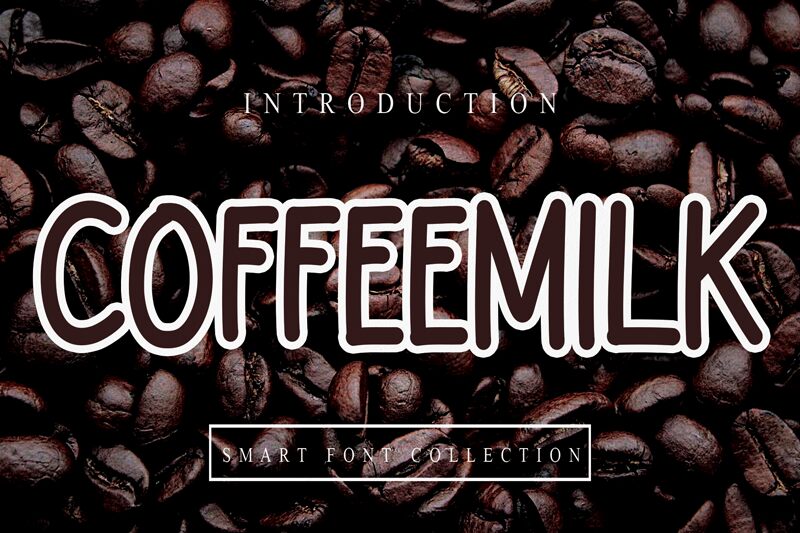
Coffeemilk
Coffeemilk, a handcrafted font by Scratchones, exudes a warm, inviting aesthetic that evokes a cozy, artisanal ambiance. The organic, slightly imperfect strokes and playful, flowing letterforms lend a sense of authenticity and personality to any design. This font's versatility shines through its seamless integration of both formal and casual elements, making it a versatile choice for a wide range of applications.
Coffeemilk's distinctive style lends itself particularly well to projects seeking to convey a handmade, artisanal feel, such as packaging, branding materials, and editorial layouts. Its distinct character also makes it an excellent choice for creating engaging social media content, event invitations, and other design pieces that aim to foster a connection with the viewer. Whether utilized in a headline, subheading, or body copy, Coffeemilk's unique charm is sure to leave a lasting impression.
the latest style letters are perfect for wall displays, wedding invitations, social media post logos,
advertisements, product packaging, product designs, labels, photography, watermarks, invitations, stationery,
and any project that requires taste handwriting.